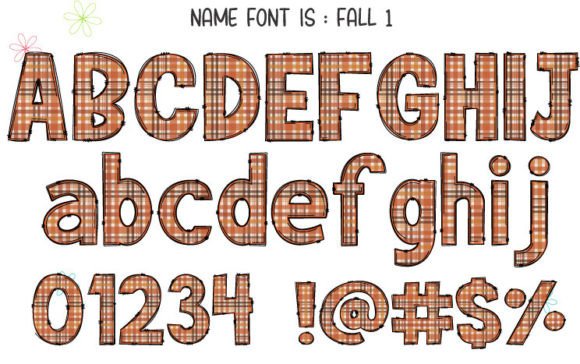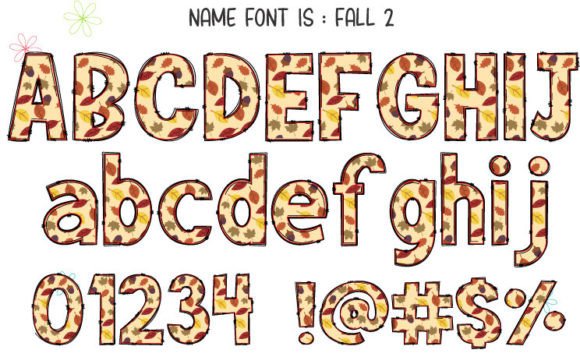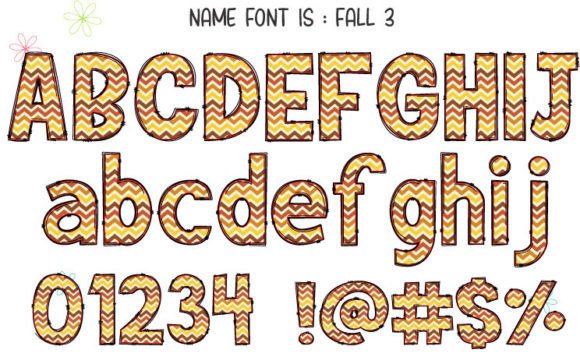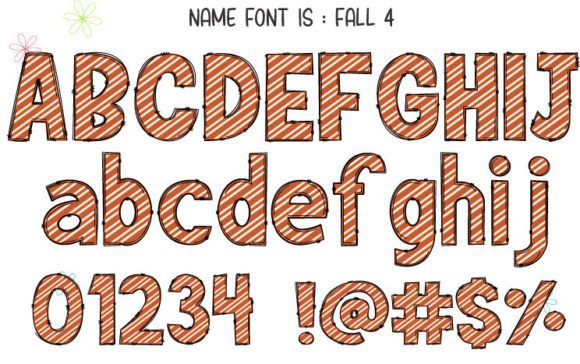
Introducing Fall Font: The Perfect Addition to Your Autumn Projects
As the leaves change colors and the air grows crisper, it’s the perfect time to get creative with your designs. Whether you’re a crafter, a designer, or a DIY enthusiast, you need a font that’s festive, fun, and fitting for the season. That’s where Fall Font comes in – a super festive font that’s perfect for all your Autumn projects!
What Makes Fall Font So Special?
Fall Font is a versatile and adorable font that’s designed to add a touch of Autumn magic to your creations. With its playful and whimsical style, it’s perfect for creating a wide range of projects, from cute monogrammed mugs and seasonal banners to sublimation projects and more. The font’s unique design makes it an excellent choice for anyone looking to add a personal touch to their designs.
Endless Design Possibilities with Fall Font
With Fall Font, the design possibilities are endless! Here are a few ideas to get you started:
• Create adorable monogrammed mugs with a personalized touch
• Design seasonal banners and signs that scream Autumn
• Make sublimation projects that showcase your creativity
• Add a touch of Fall magic to your social media graphics and blog posts
Tips and Tricks for Using Fall Font
To get the most out of Fall Font, here are a few tips and tricks to keep in mind:
• Experiment with different colors and textures to add depth to your designs
• Use the font in combination with other design elements, such as leaves and pumpkins, to create a cohesive look
• Don’t be afraid to get creative and try out new and unique design ideas
Fall Font is the perfect addition to any designer’s or crafter’s toolkit. With its festive and playful style, it’s sure to add a touch of Autumn magic to all your projects. Whether you’re creating monogrammed mugs, seasonal banners, or sublimation projects, Fall Font is the perfect choice. So why wait? Download Fall Font today and get creative with your Autumn designs!